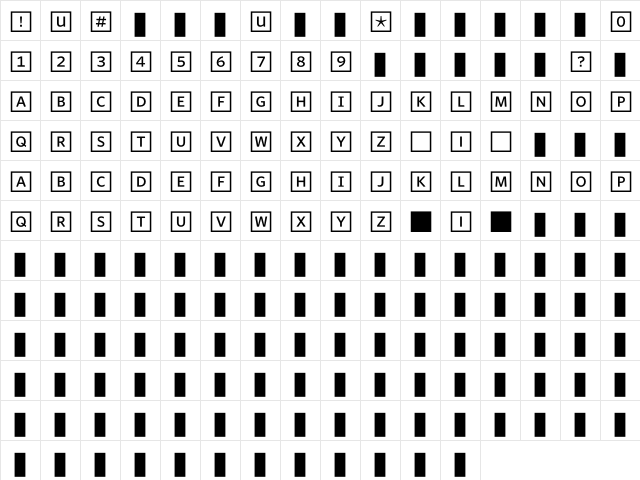
WhitneyIndexWhite SquareMd Font Preview
WhitneyIndexWhite SquareMd
WhitneyIndexWhite SquareMd Font Details
| Style | SquareMd |
Design Context for WhitneyIndexWhite Typeface
WhitneyIndexWhite takes a measured approach to typography — its balanced proportions and neutral character make it a reliable workhorse for both digital and print work.
Dating back to 2003, this typeface is available in OpenType (OTF) format.